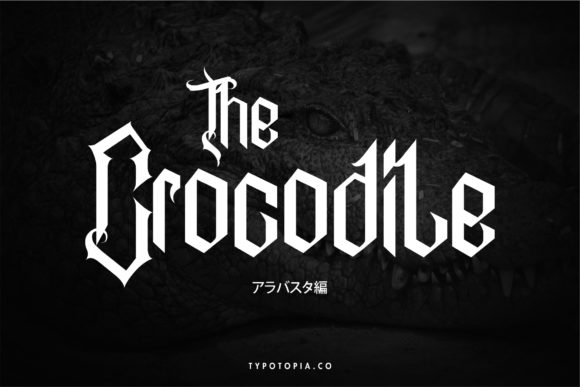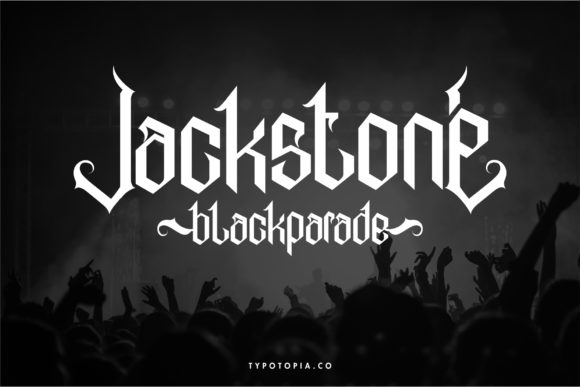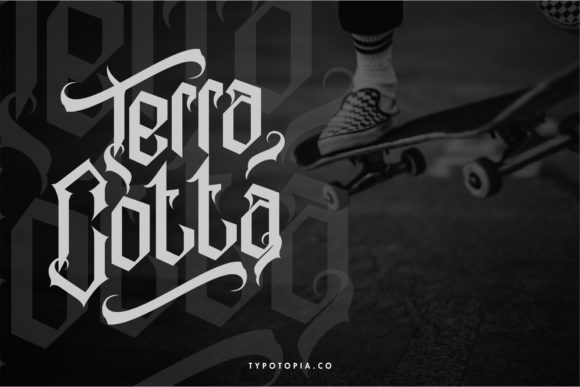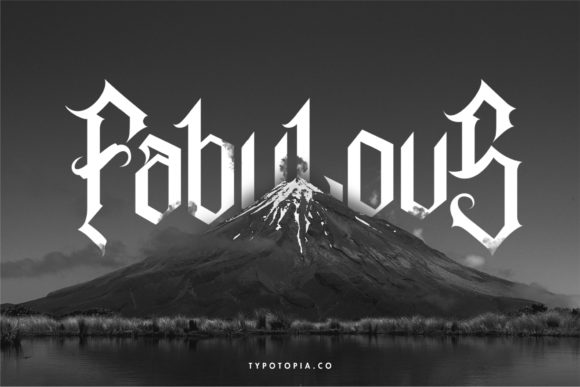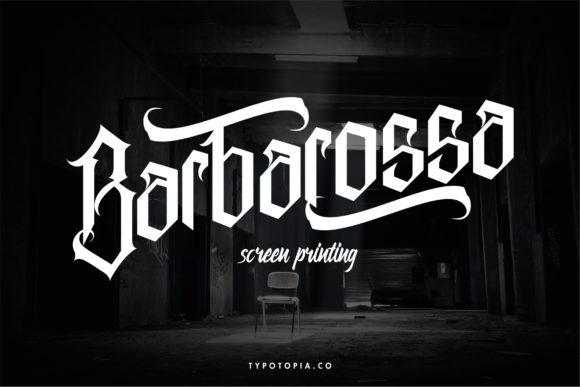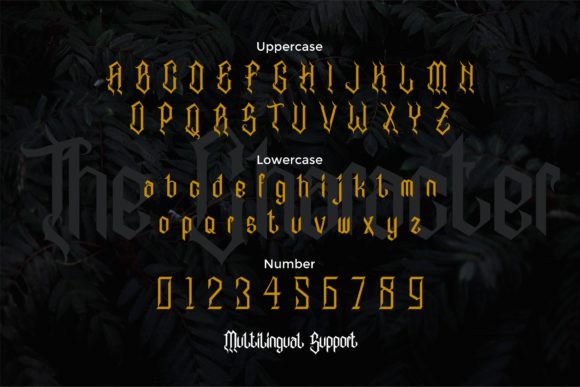
The Alabasta Font: A Vintage Blackletter Gem
I still remember the design project that led me to discover the Alabasta font. I was working on a branding campaign for a historical-themed restaurant, and I needed a font that would transport customers back in time. After hours of searching, I stumbled upon Alabasta, and it was love at first sight! ✨ This authentic blackletter font has an incredibly vintage feel that instantly elevates any design. In this article, I’ll share my experience with Alabasta, its features, and how to make the most of it in your creative projects.
An Honest Review of Alabasta
- 💯 Authentic blackletter feel: Alabasta’s vintage vibe is unparalleled, making it perfect for designs that require a touch of history.
- ✨ Highly legible: Despite its ornate style, Alabasta remains surprisingly readable, even at smaller font sizes.
- ✅ OpenType features: This font comes with a range of OpenType features, including stylistic alternates and glyphs, which offer endless creative possibilities.
- 🎨 Versatile: Alabasta can be used for a wide range of projects, from branding and advertising to packaging and signage.
While Alabasta is an excellent font, it’s not without its quirks. ⚠️ Some users may find that the font’s vintage feel can make it less suitable for very modern or minimalist designs. Additionally, 🤔 the font’s letter spacing can be a bit inconsistent, which may require manual adjustments for optimal results.
The Backstory of Alabasta
While the origins of Alabasta are shrouded in mystery, it’s said that the font was inspired by ancient manuscripts and blackletter calligraphy. 💫 The font’s creator aimed to craft a typeface that would evoke the mystique and romance of a bygone era. Whether or not this story is true, one thing is certain: Alabasta has become a beloved font among designers and crafters.
| What type of projects is Alabasta best suited for? | Alabasta is versatile and can be used for a wide range of projects, including branding, advertising, packaging, and signage. |
| Is Alabasta a difficult font to read? | No, despite its ornate style, Alabasta remains surprisingly readable, even at smaller font sizes. |
| Does Alabasta come with any OpenType features? | Yes, Alabasta comes with a range of OpenType features, including stylistic alternates and glyphs. |
In conclusion, Alabasta is a unique and captivating font that can add a touch of vintage elegance to any design. With its authentic blackletter feel, high legibility, and OpenType features, it’s an excellent choice for designers, crafters, and creative hobbyists looking to create stunning visual content.